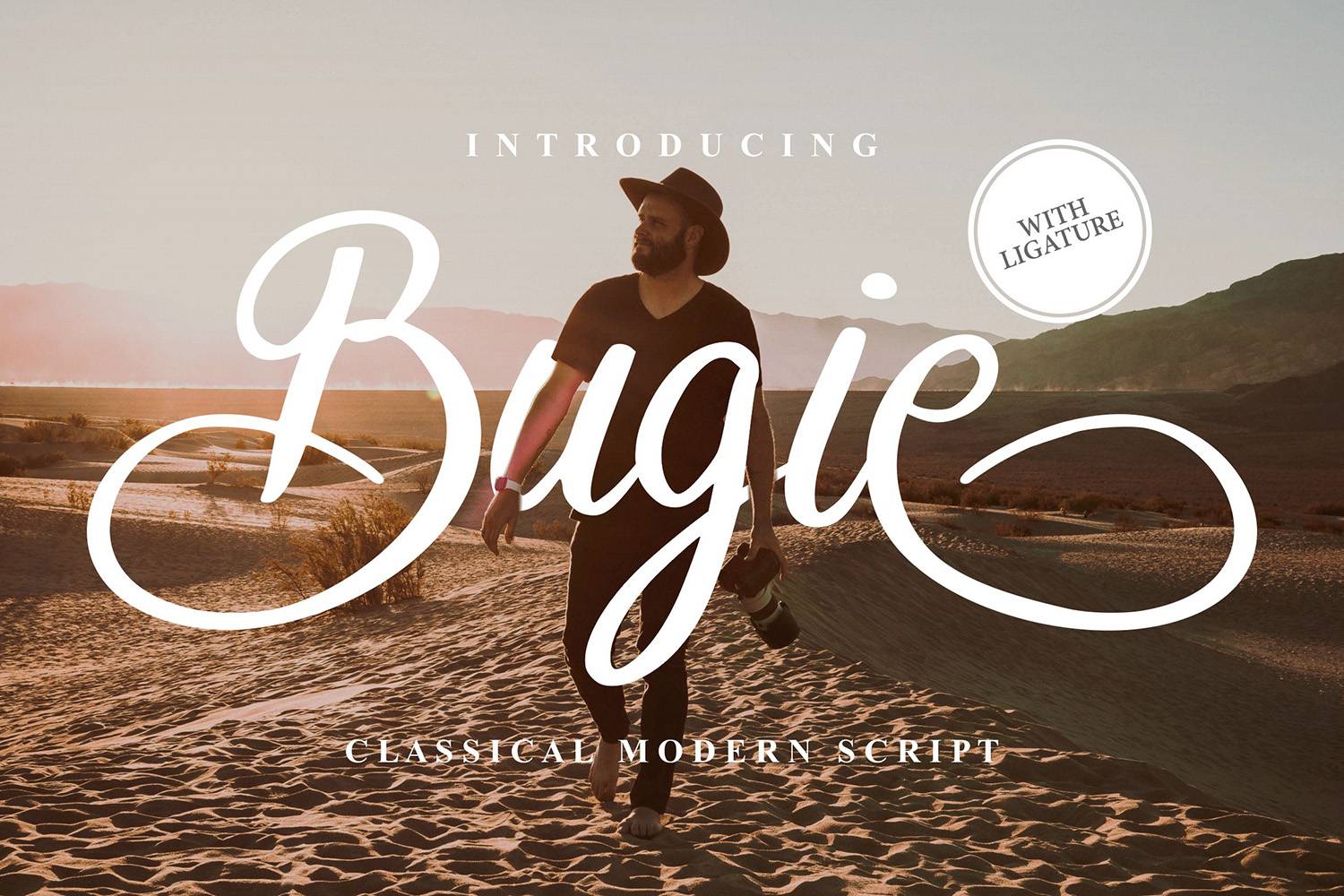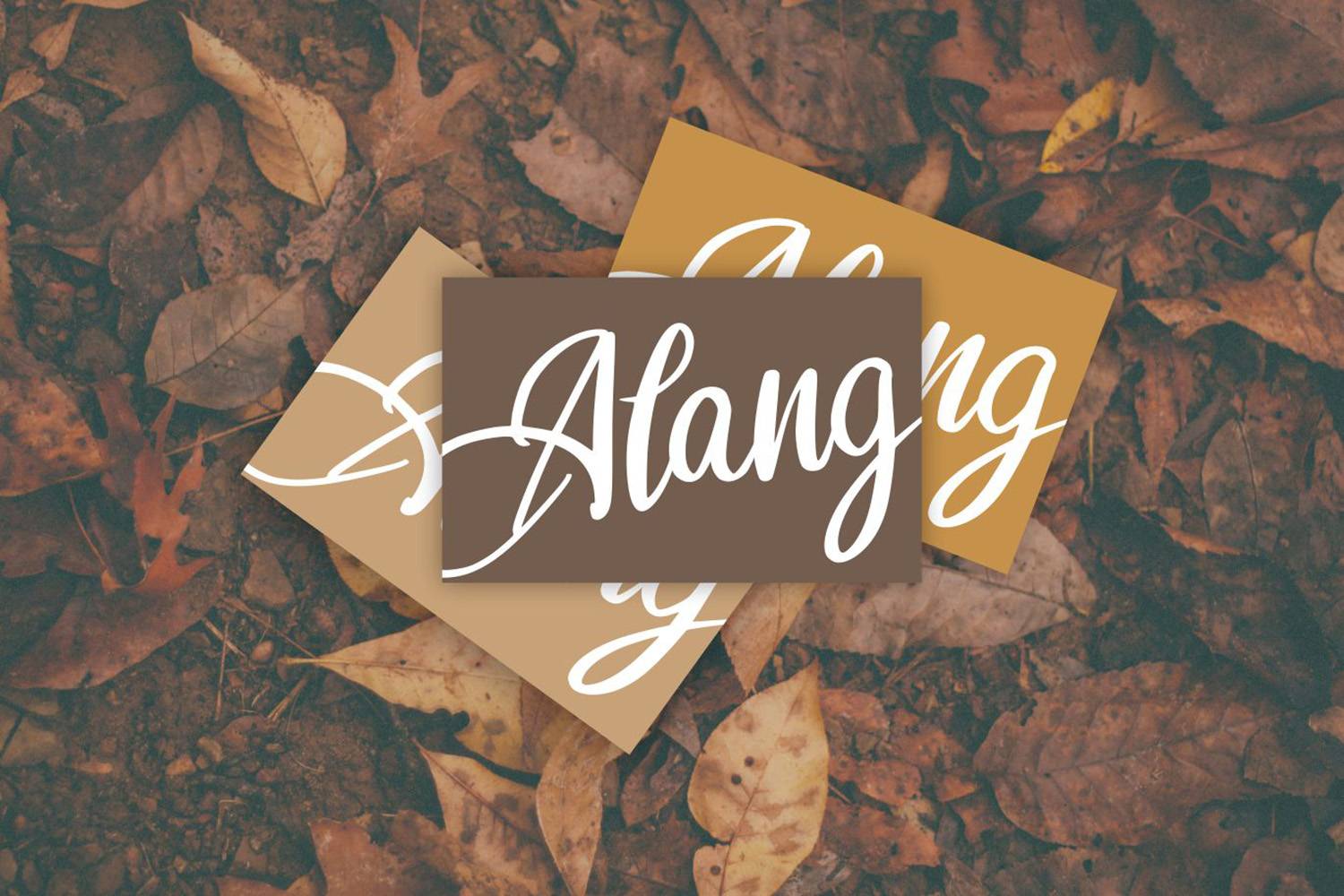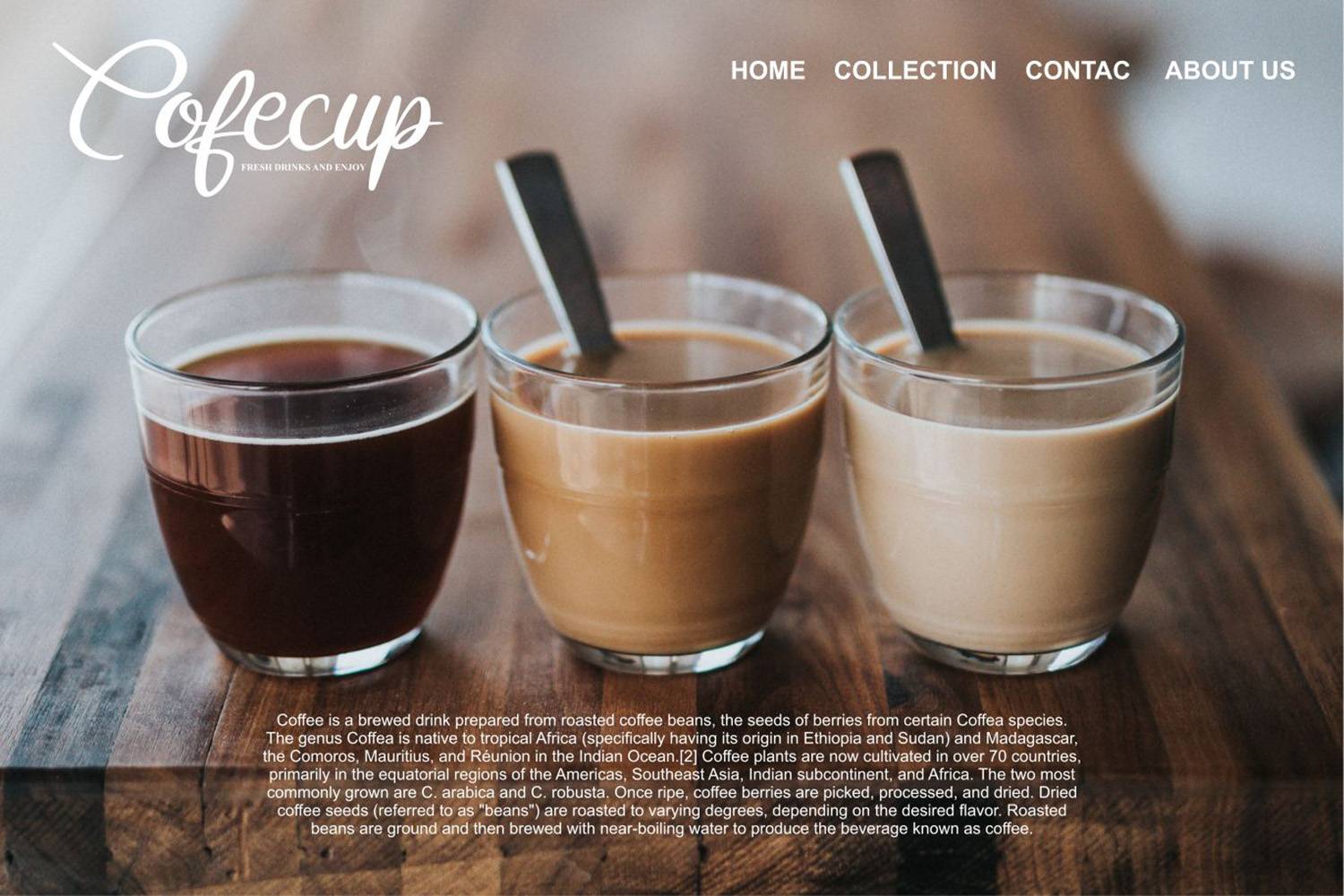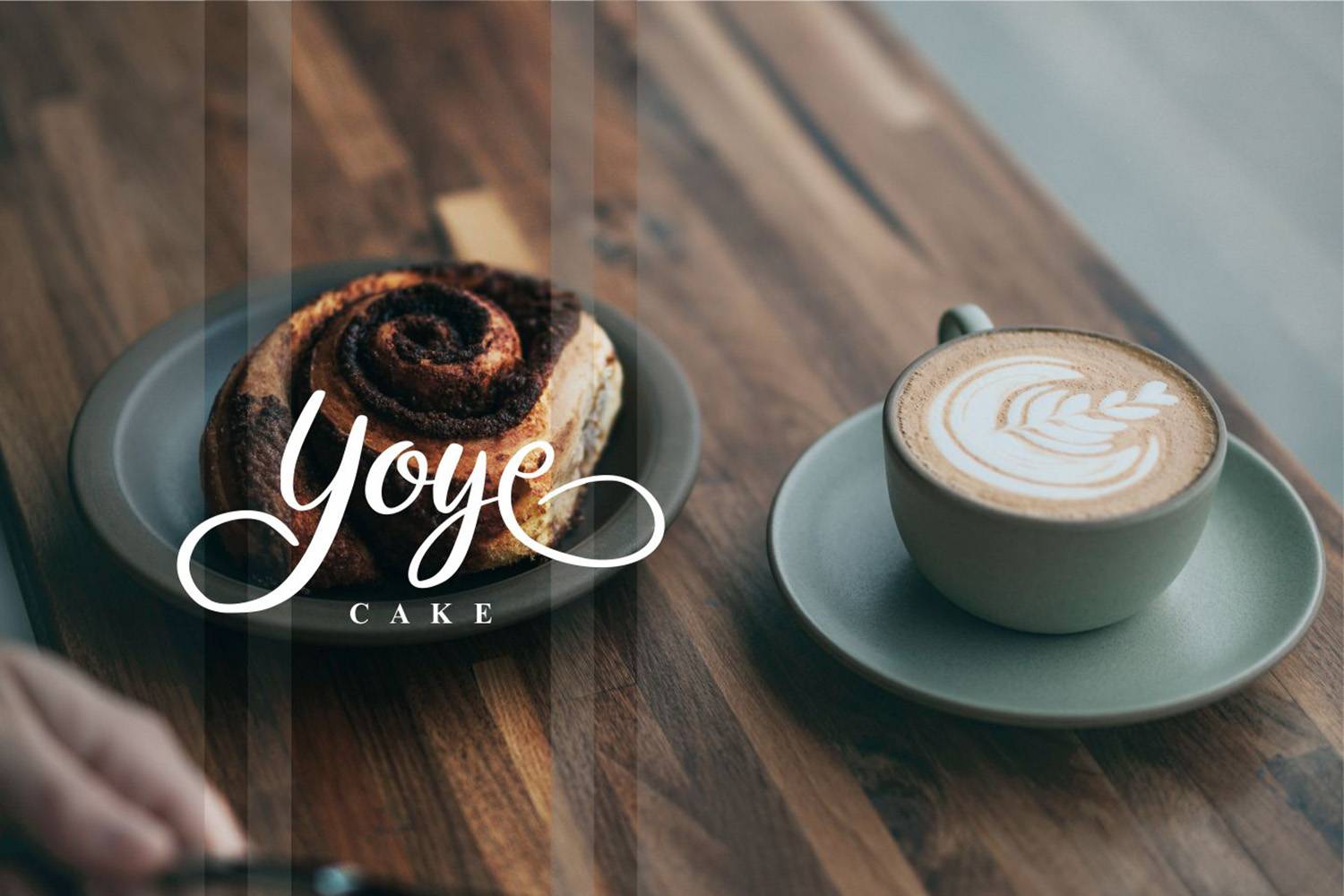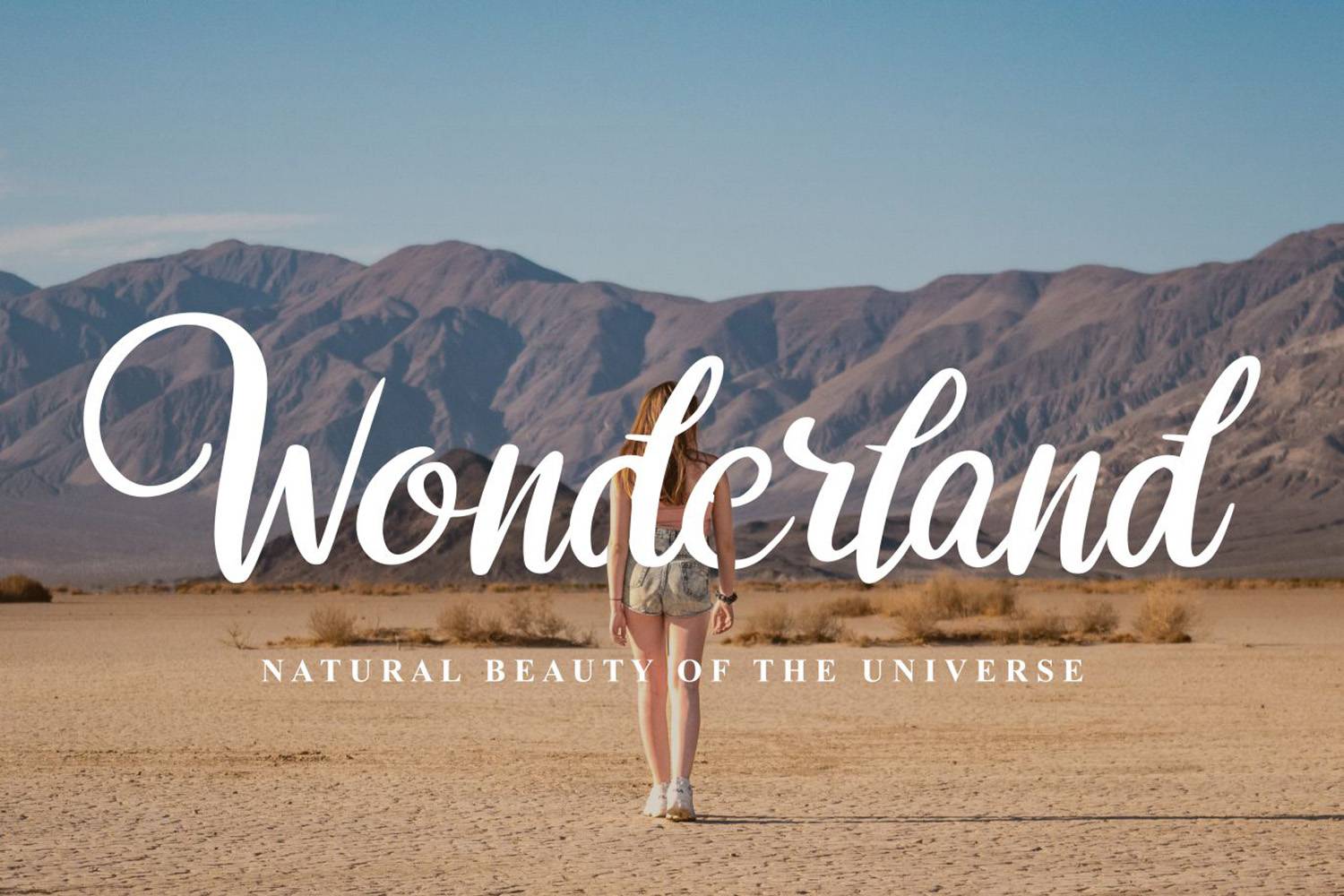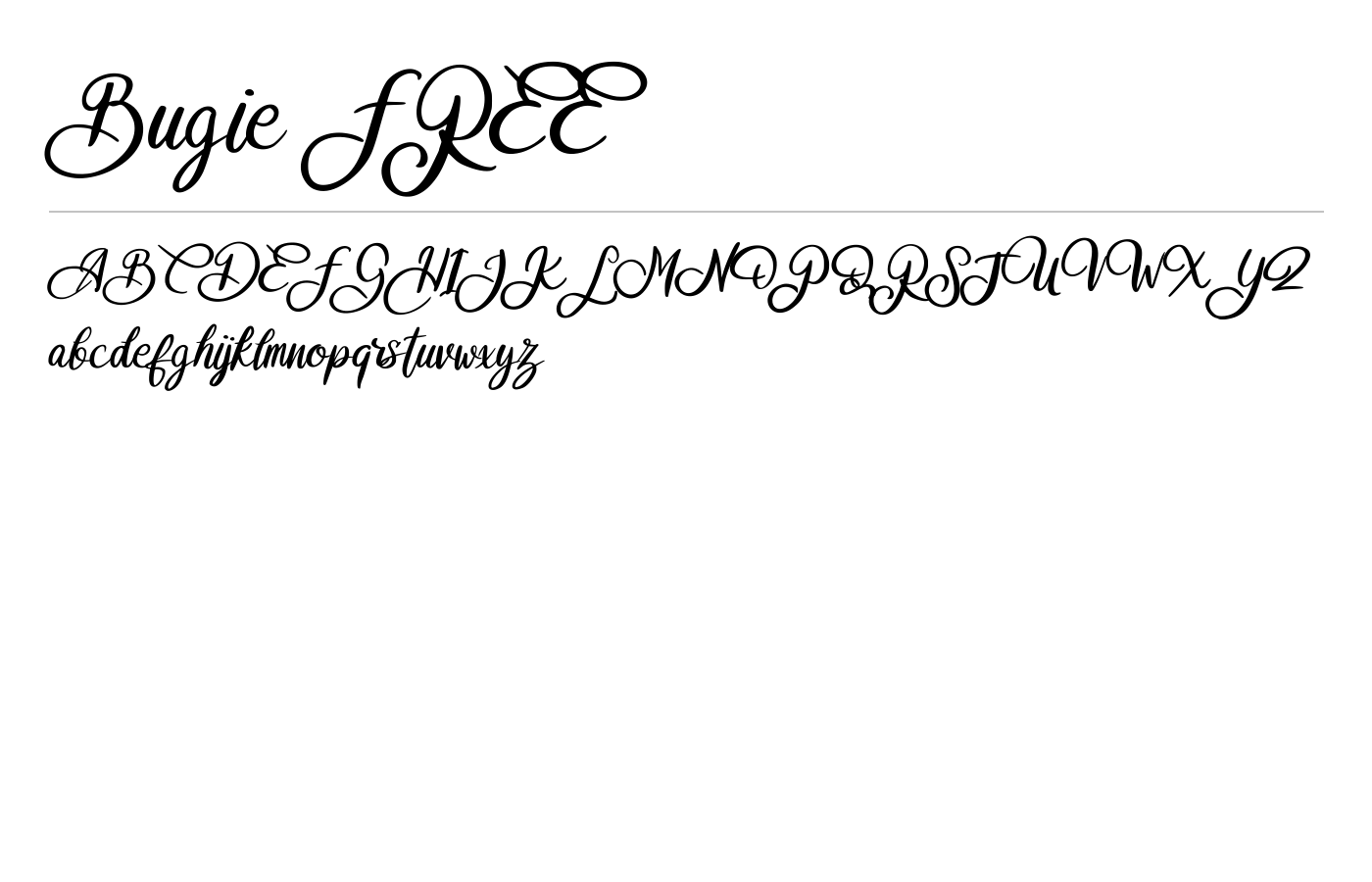
Bugie Classical is an elegant script font with graceful, flowing letterforms that evoke a classic handwritten style. Its delicate, high-contrast strokes and ornamental swashes convey sophistication, making it perfect for luxury branding, invitations, and decorative headlines. This font adds a refined and timeless touch wherever a stylish, personal feel is desired.
Bugie Classical Font
About Bugie Classical Font
| Font family | Bugie Classical Font |
| Designer | Fannan Studio |